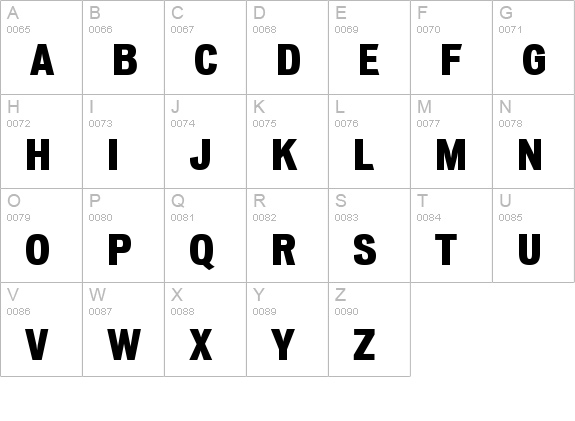
Vonnes-BlackCondensed Font Details
Vonnes-BlackCondensed is a sleek and modern font that exudes elegance and sophistication. Its condensed design makes it perfect for headlines, titles, and branding projects that require a strong and impactful visual presence. The bold and sharp letterforms of Vonnes-BlackCondensed command attention and make a lasting impression. This font features a unique fusion of classic and contemporary design elements, resulting in a versatile typeface that can be used in a variety of creative projects. Whether you're designing a magazine layout, creating a logo, or crafting a poster, Vonnes-BlackCondensed will effortlessly elevate your work to new heights. One of the best things about Vonnes-BlackCondensed is that it is free! Yes, you read that right. This incredible font is freely available to download at FontsMarket.com. Now you can enhance your designs with this premium-quality font without breaking the bank. The designers behind Vonnes-BlackCondensed have meticulously crafted each letterform to ensure optimal legibility and visual impact. The character set includes a wide range of uppercase and lowercase letters, numbers, punctuation marks, and special symbols, allowing you to express your creativity with ease. Whether you're a professional designer or a passionate hobbyist, Vonnes-BlackCondensed is a must-have addition to your font library. Its bold and striking aesthetic combined with its availability as a free download make it a truly valuable resource for any creative project. Download Vonnes-BlackCondensed today at FontsMarket.com and unlock a world of design possibilities. Elevate your projects with this stunning font and make a lasting impression on your audience.